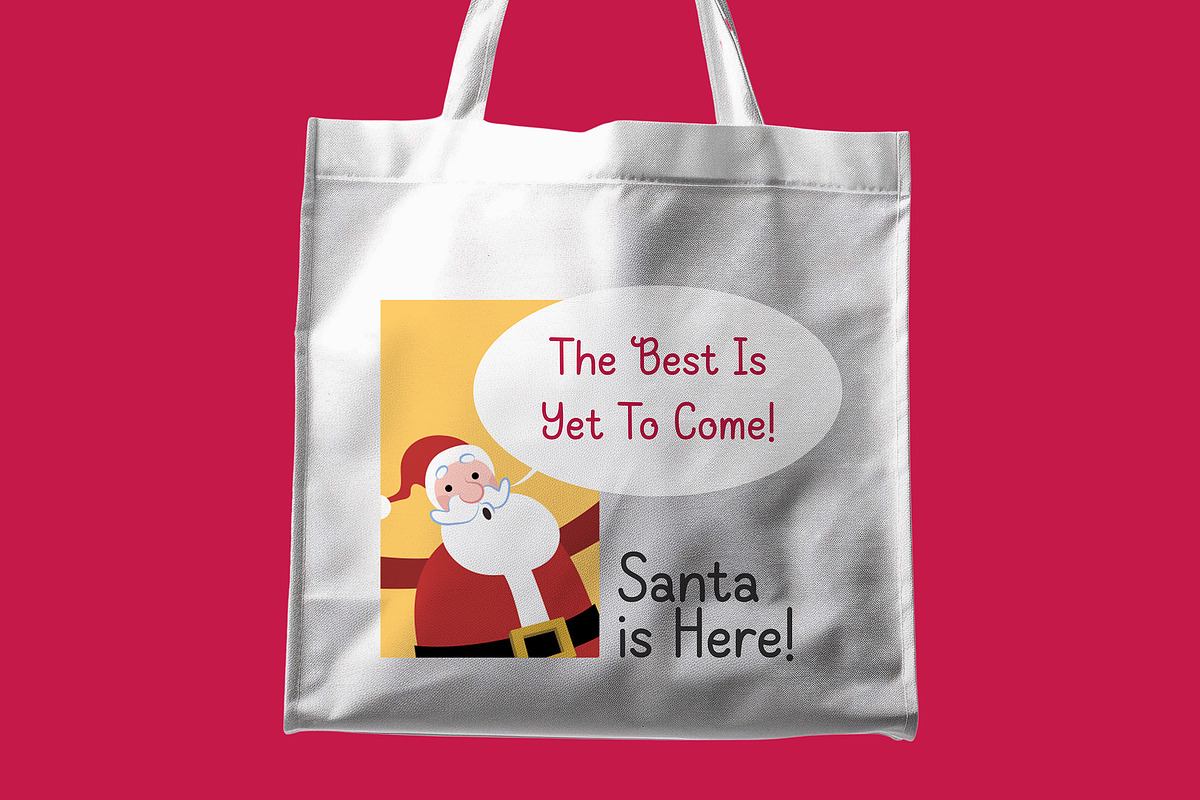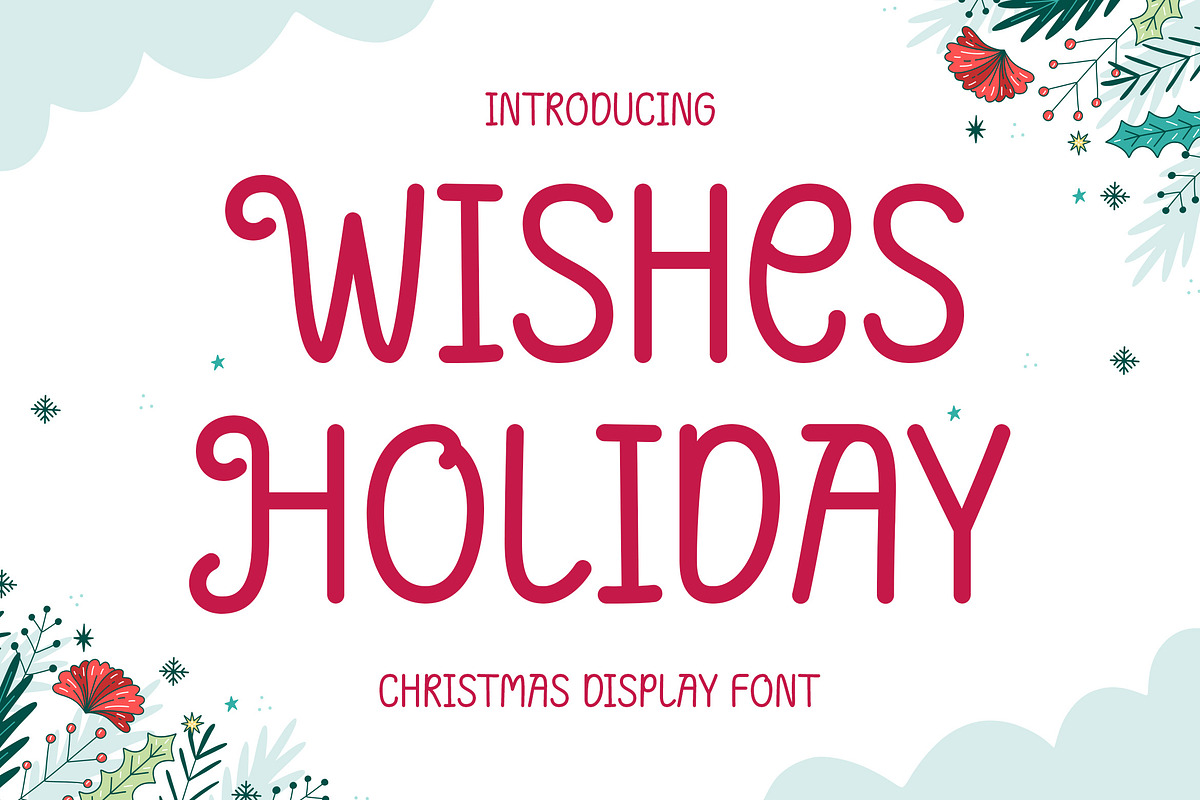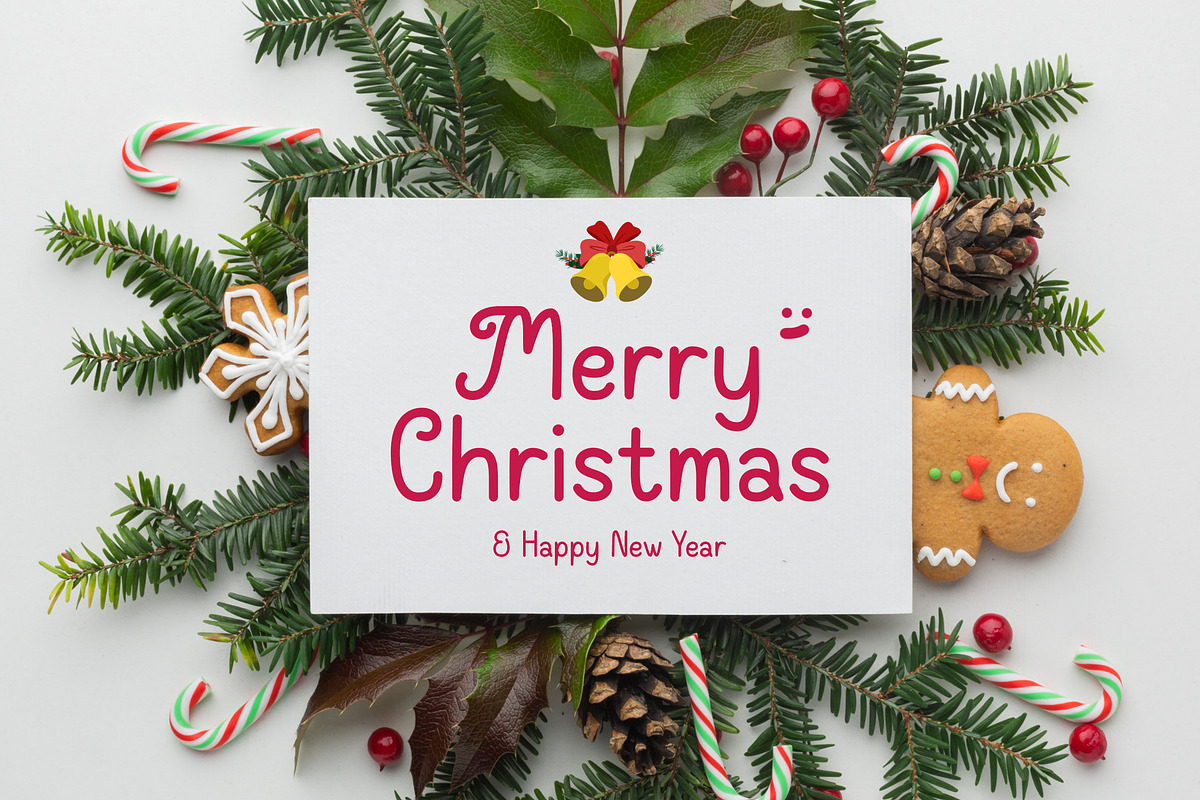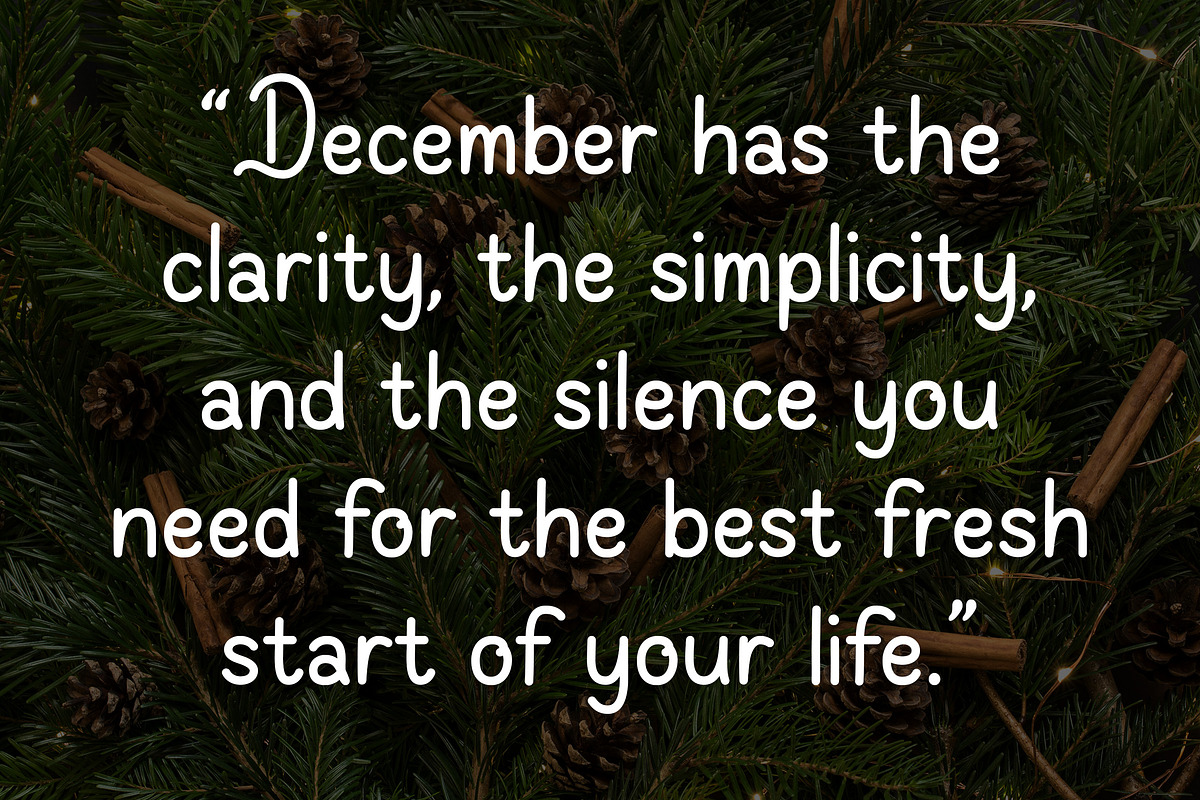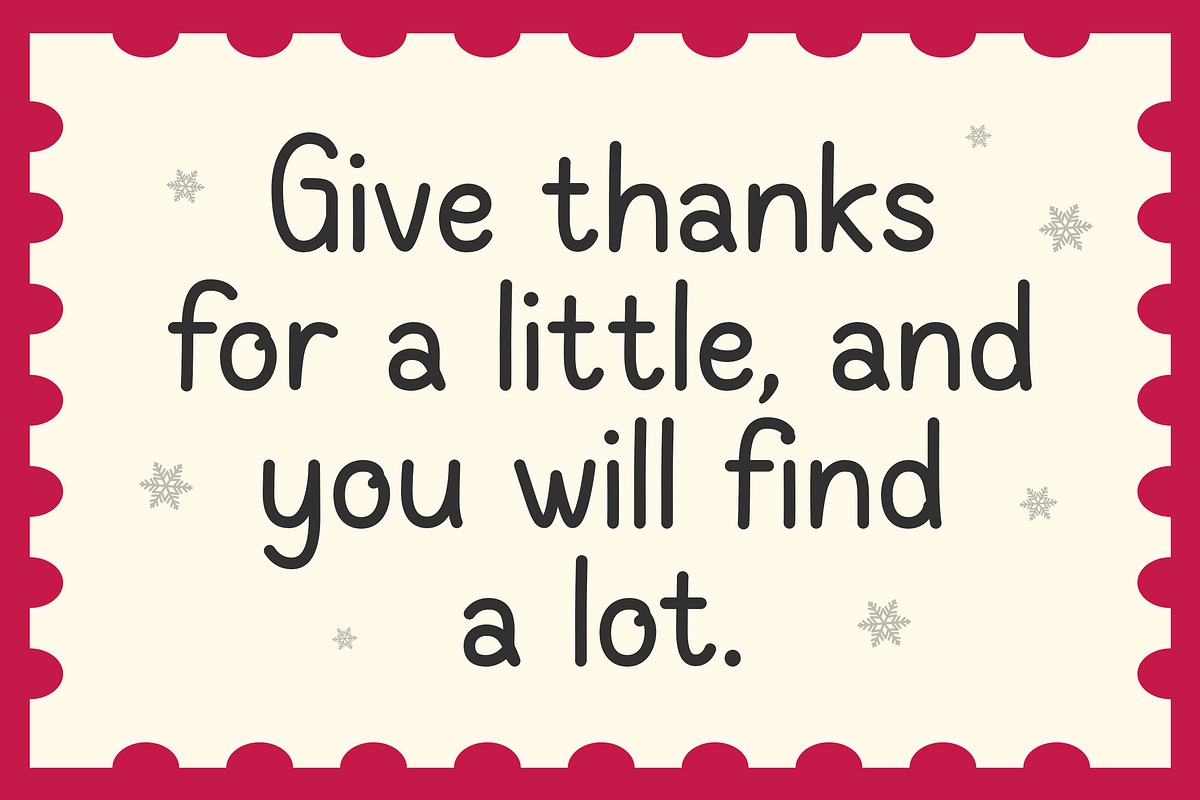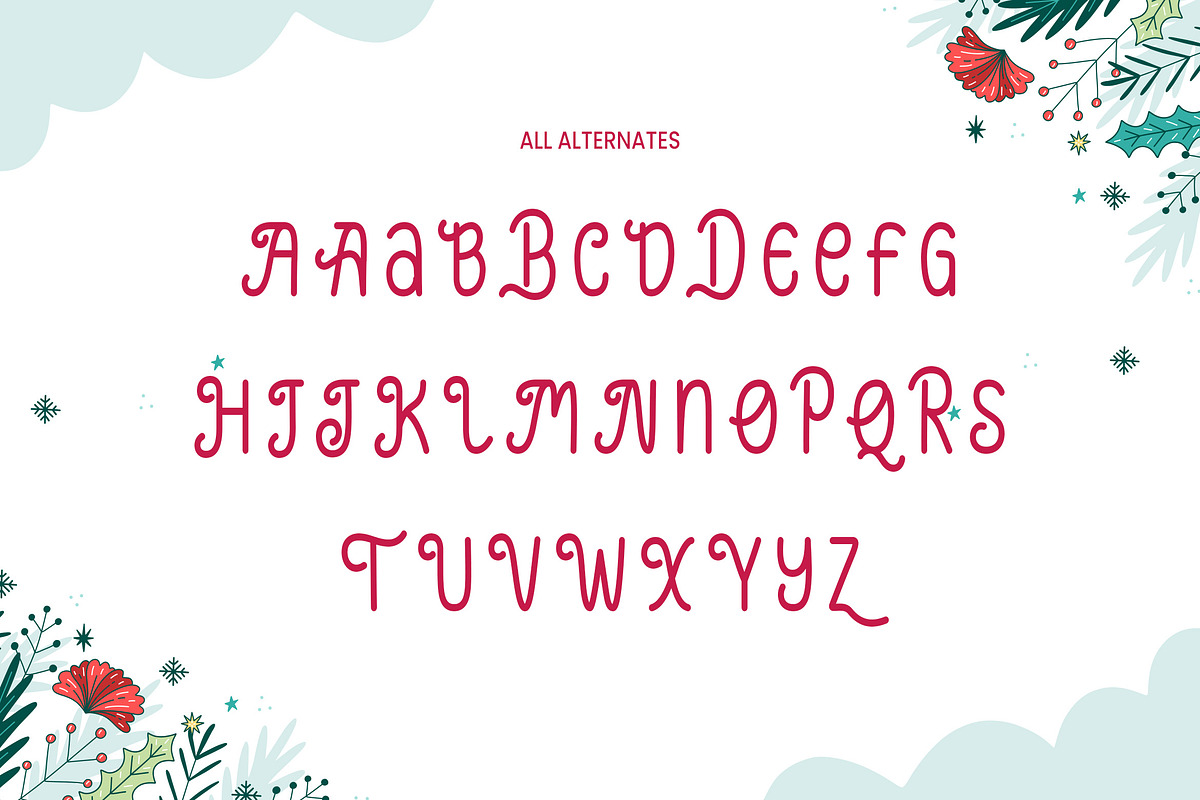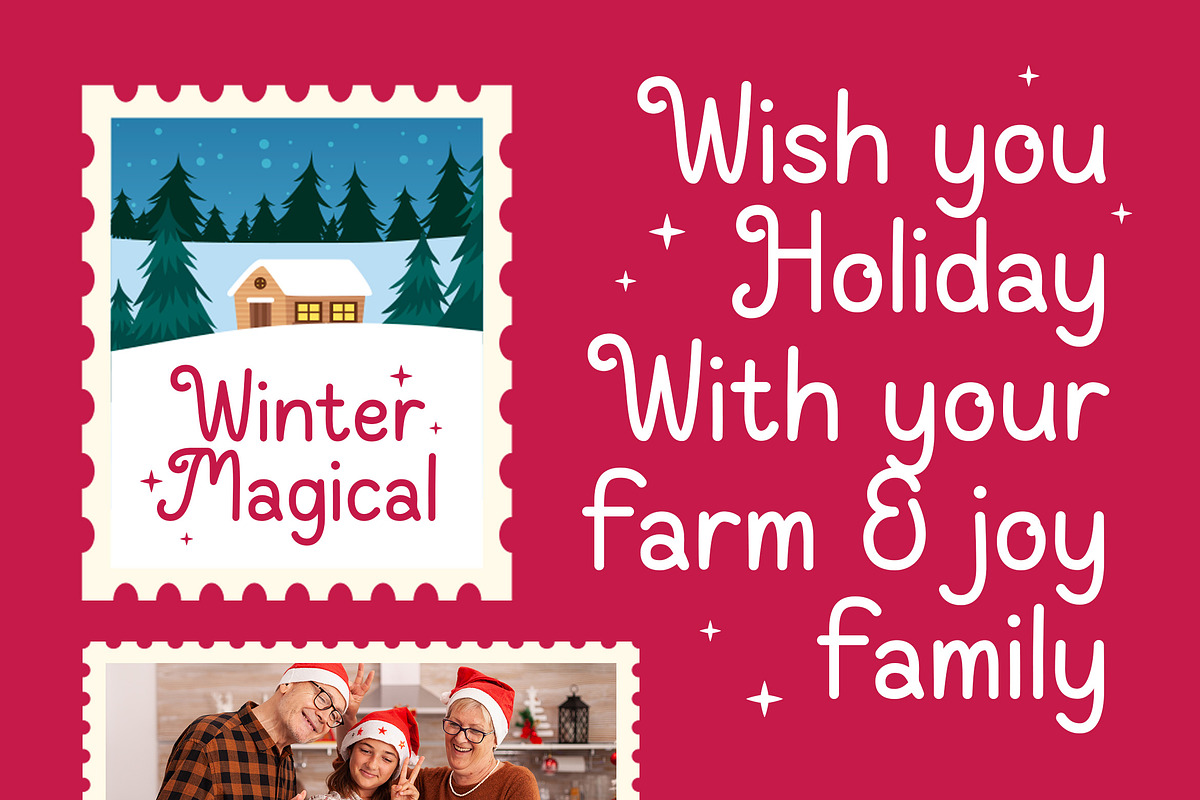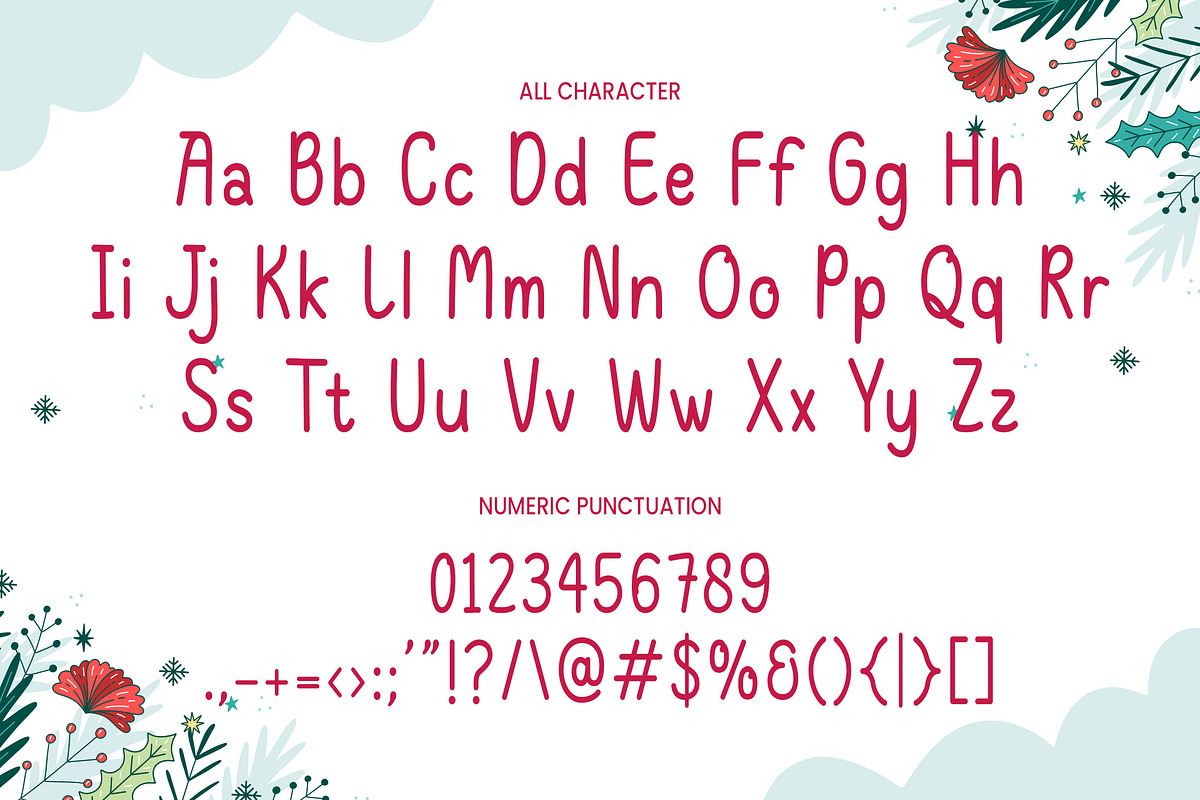
DT Wishes Holiday
DT Wishes Holiday Font
Display font that has a unique character theme and is suitable for use for Christmas themes. DT Wishes Holiday Font is a font that is very suitable for use in the spirit of Christmas and long holidays. The font I created is very versatile, and fits various designs, making it the best. Add this font to your favorite creative ideas and see the results!
Features: Uppercase, Lowercase, Punctuation Numbers, Alternate & Multilingual Support